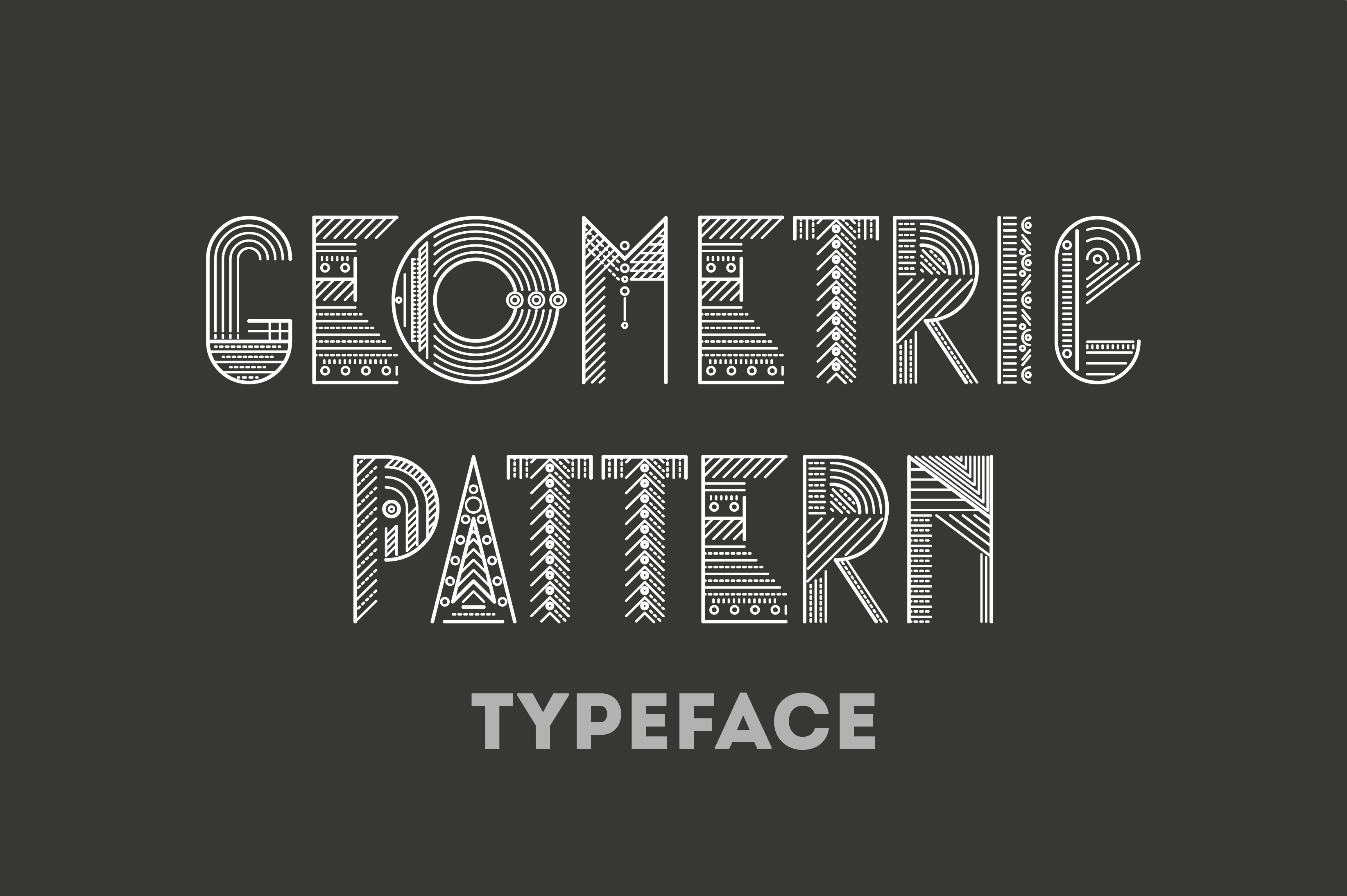
Geometric pattern typeface
This is a fantasy geometric font with pattern elements that will be perfect for many different projects: quotes, blog headers, posters, branding, logo, fashion, apparel, invitation, stationery, etc.
Please note that both uppercase and lowercase letters look the same!